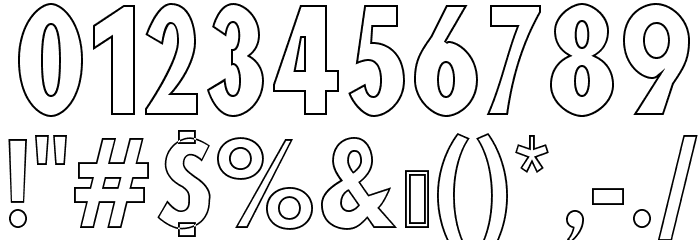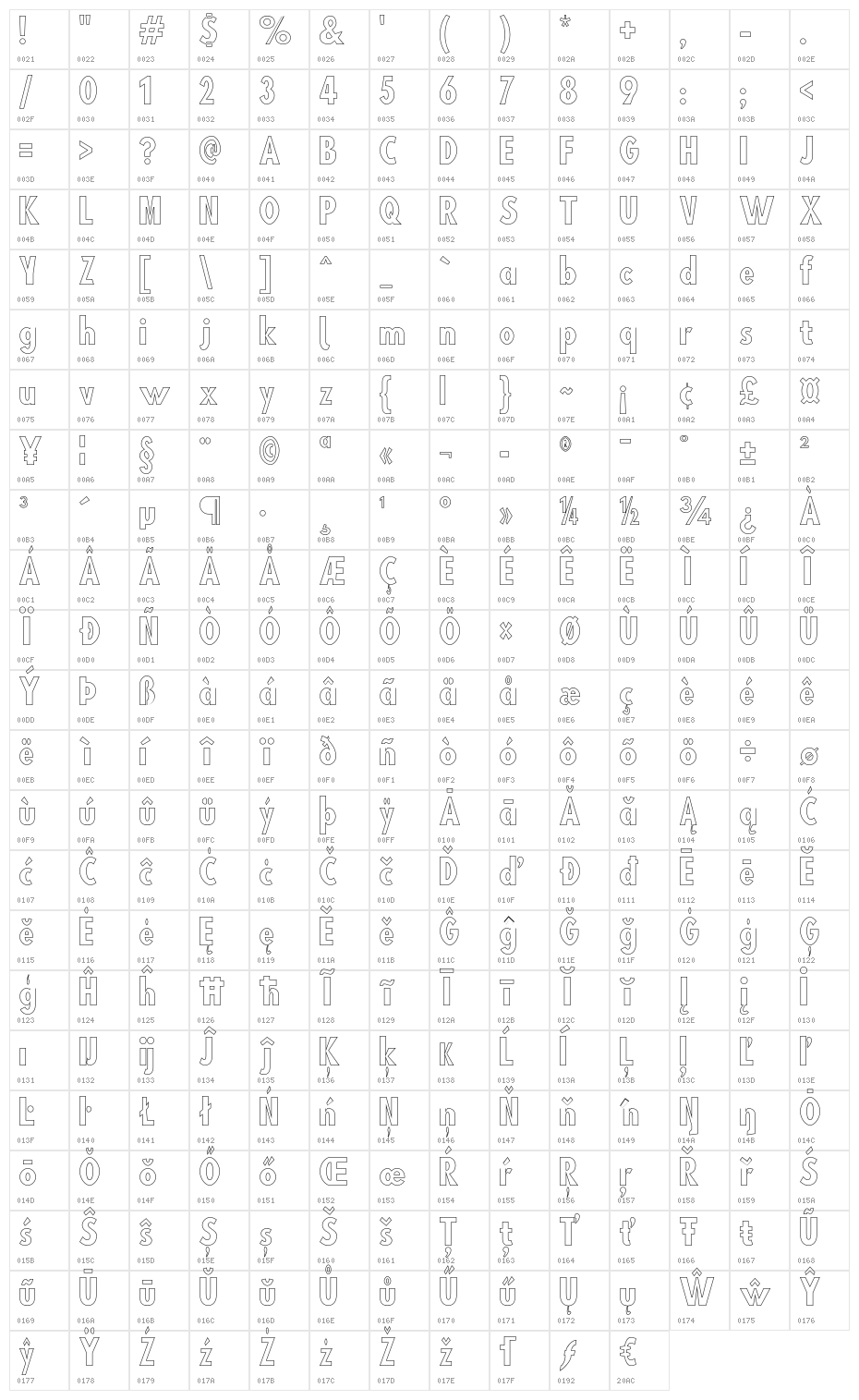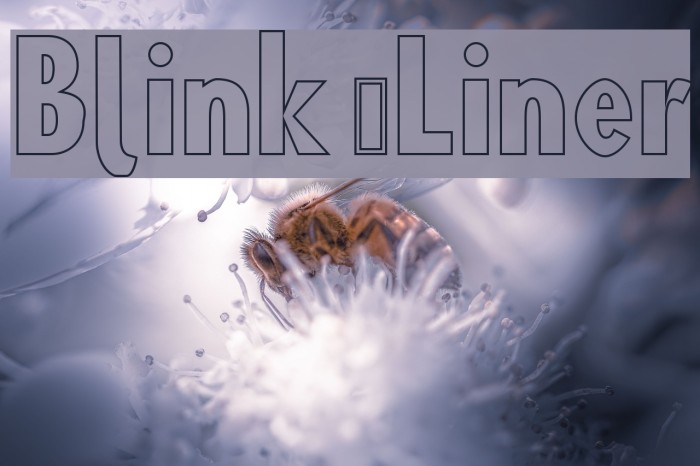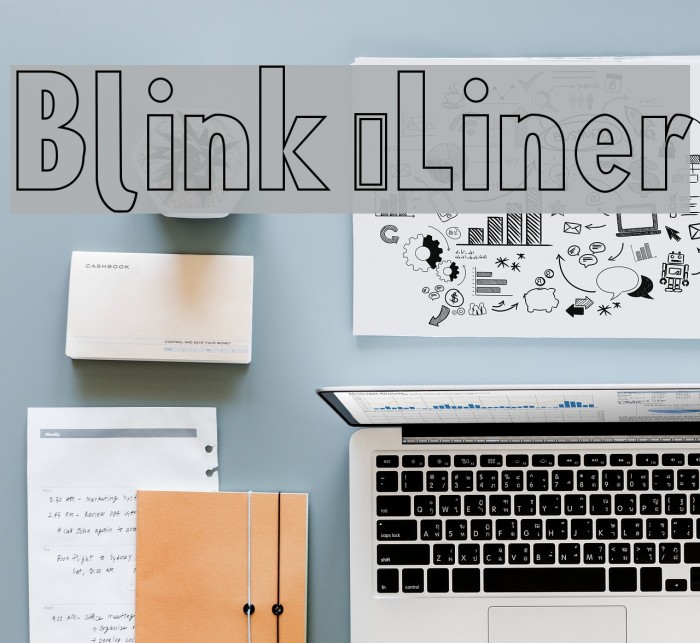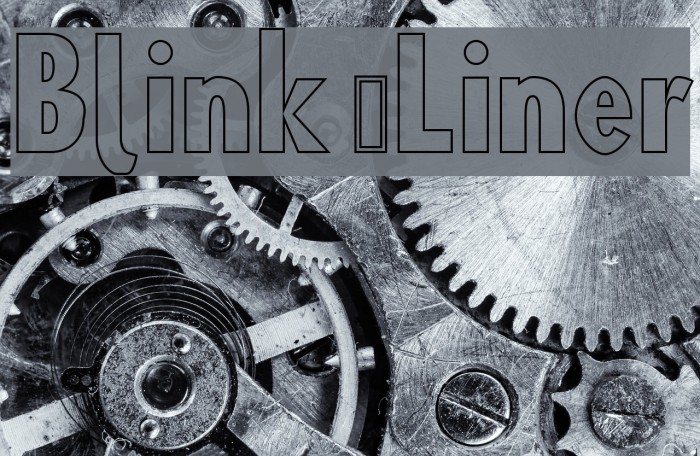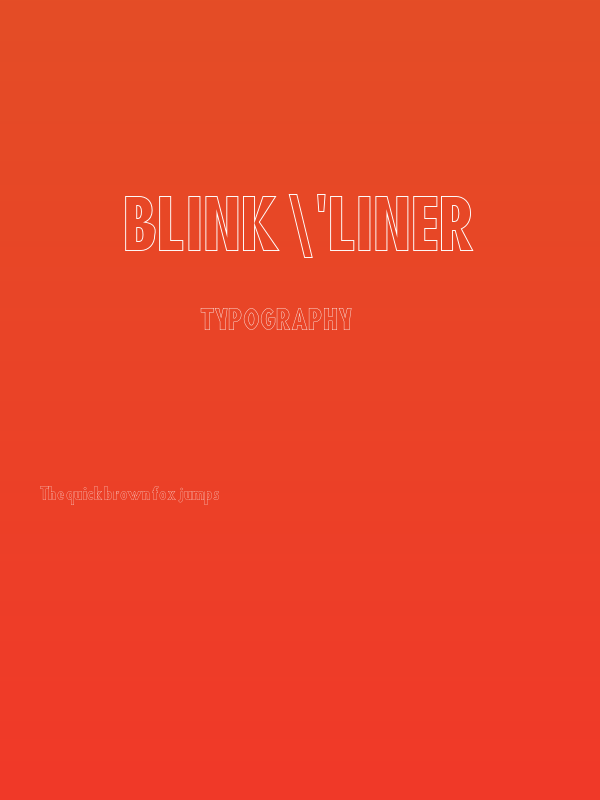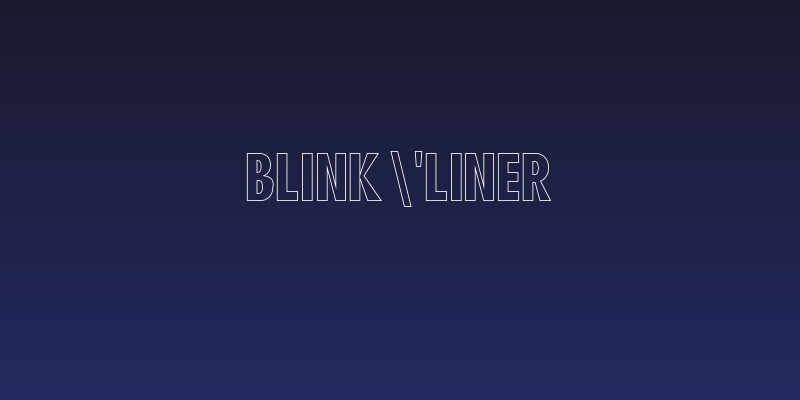
Blink 'Liner Font
Blink 'Liner Description
This font features a bold, outlined style that gives each character a striking and modern appearance. The uppercase letters are uniform in height and width, creating a cohesive look. The lowercase letters maintain a similar style, with a slightly more rounded appearance, adding a touch of softness to the overall design. The numbers are bold and clear, ensuring readability. Special characters are consistent with the font's outlined theme, making them stand out while remaining harmonious with the rest of the set. This font's clean lines and geometric shapes make it versatile for various design applications.
Proposed ProjectsIdeal for headlines, posters, branding, and any design requiring a modern and bold statement.